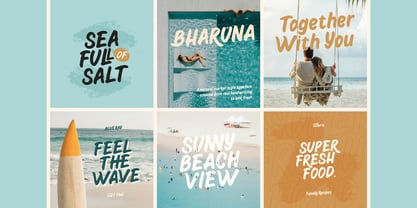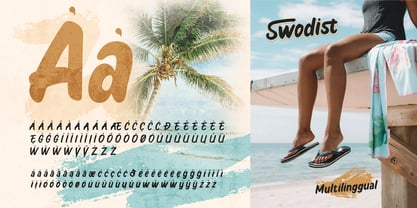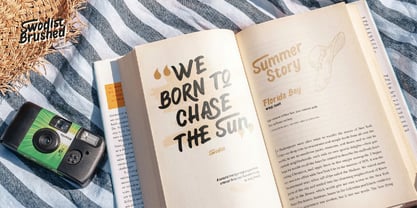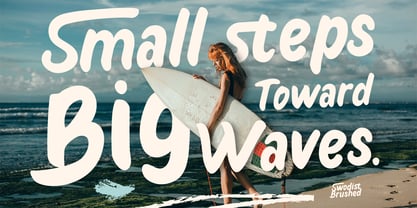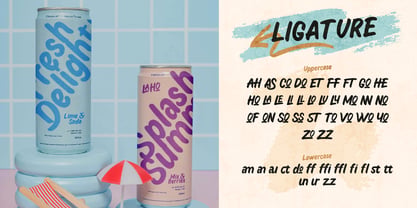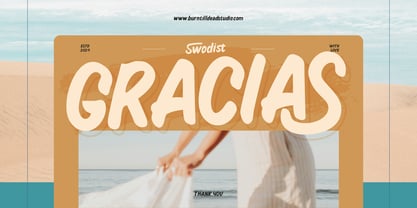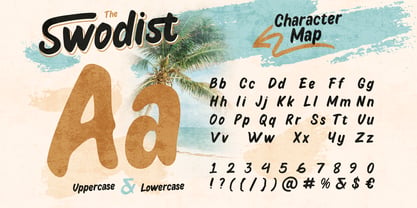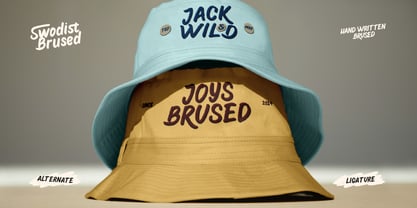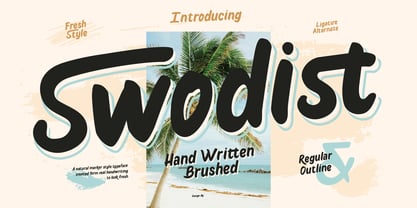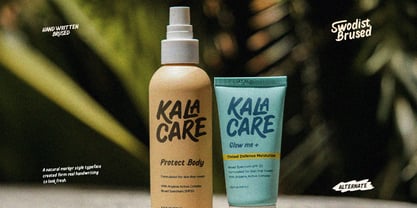
Swodist
Meet Swodist – a handwritten brush font with a fresh and retro-friendly vibe. Swodist brings a natural and expressive feel to your design, thanks to its bold shapes combined with soft brush textures.
It comes in two styles: Regular and Outline, and includes alternates and ligatures to help you style your design effortlessly and creatively. Perfect for branding, posters, headlines, logos, packaging, magazines, book covers, and more!
Features:
• A - Z set (Uppercase & Lowercase)
• Number
• Punctuation
• Alternates
• Ligatures
• Multilingual